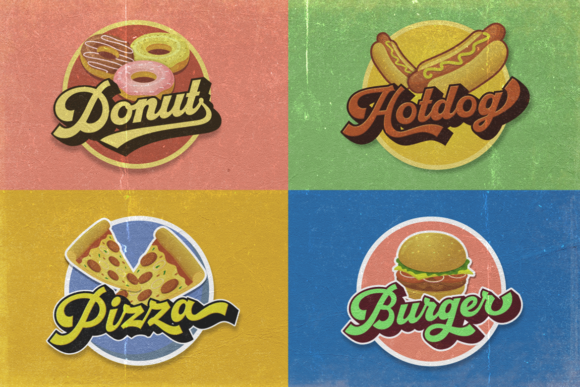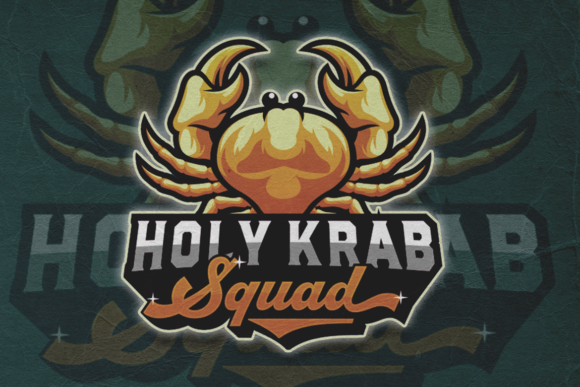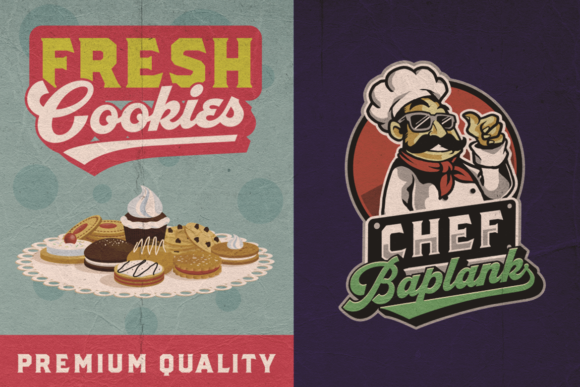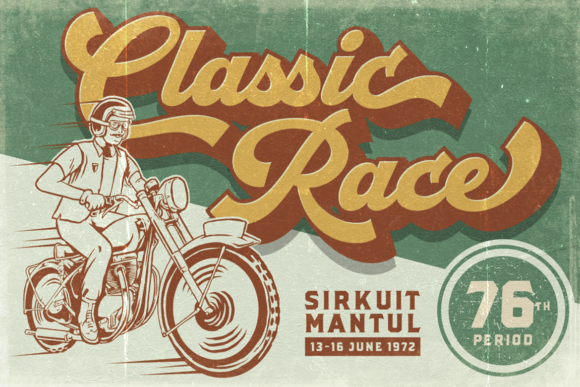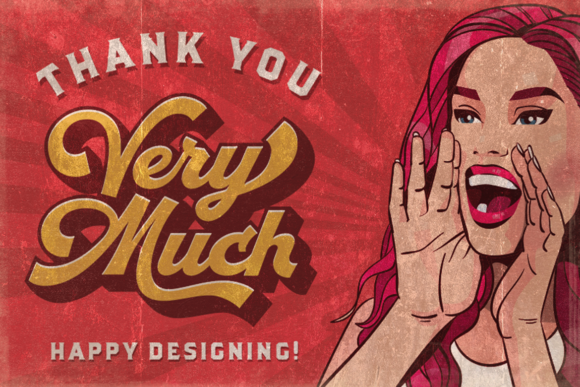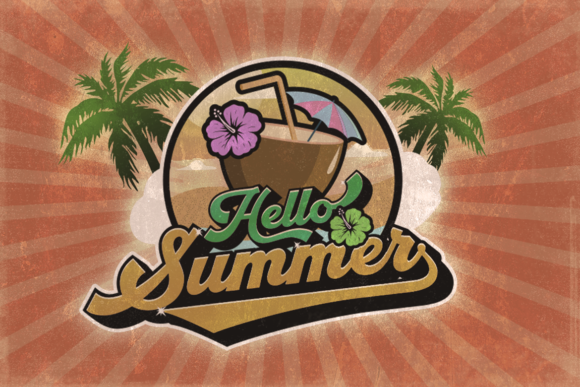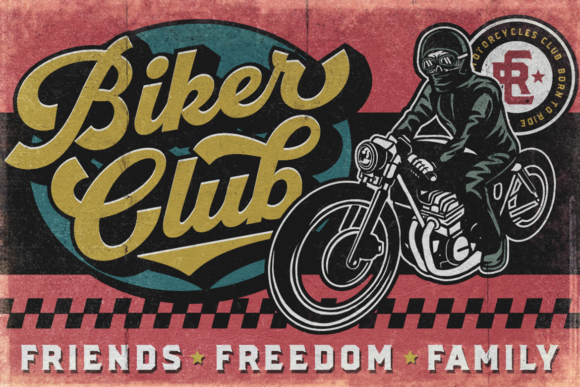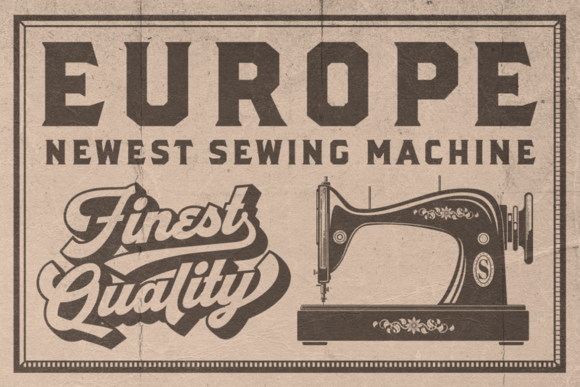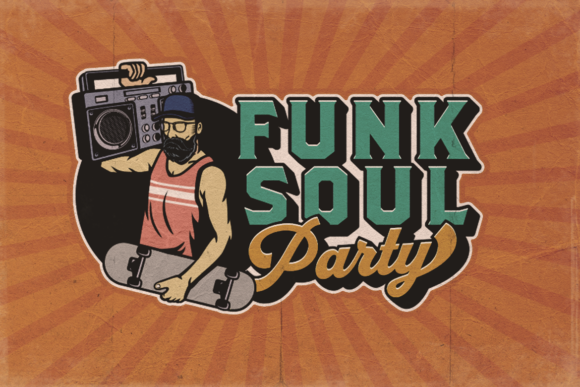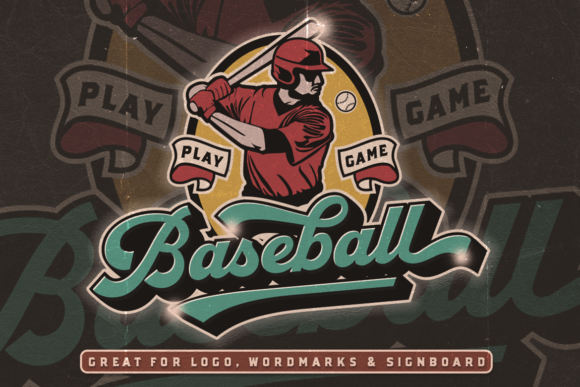
HomeScript FontsRetrofunk Font Script Fonts Retrofunk Font FacebookXPinterestWhatsApp Retrofunk Font Poster 2 Retrofunk Font Poster 3 Retrofunk Font Poster 4 Retrofunk Font Poster 5 Retrofunk Font Poster 6 Retrofunk Font Poster 7 Retrofunk Font Poster 8 Retrofunk Font Poster 9 Retrofunk Font Poster 10 Retrofunk Font Poster 11 Retrofunk Font Poster 12 Retrofunk Font Poster 13 Retrofunk Font Poster 14 About Retrofunk Font Retrofunk is a nostalgic script with a dynamic feel. It will add a vintage feel to any design project! DOWNLOAD NOW People also explored Before Sunday Font Gianella Breakfast Font Maharani Font Serling Font Body & Soul Font Safiya Font Winter Font Havergie Font Simphony Font 352 0 TagsRetrofunk Font Previous articleGroovy FontNext articleSwandana Font LEAVE A REPLY Cancel reply Comment: Please enter your comment! Name:* Please enter your name here Email:* You have entered an incorrect email address! Please enter your email address here Website: Save my name, email, and website in this browser for the next time I comment. Personal Use Free Equestrain Personal Use Free Read more about this font Ashay Personal Use Free Read more about this font Bebas Neue Font Personal Use Free Read more about this font Jelly Fish Personal Use Free Read more about this font BLOG Where to Buy American Fonts Online in 2024 Where to Buy American Fonts Online: The Ultimate Guide for 2024 Looking for the perfect American font to elevate your design projects? You're in the... Best Fonts for YouTube Videos: Make Your Thumbnails Stand Out How to Install and Use Fonts on Windows, macOS, and Web Projects Top 7 Google Fonts Alternatives for Faster and Privacy-Friendly Web Design (2025)